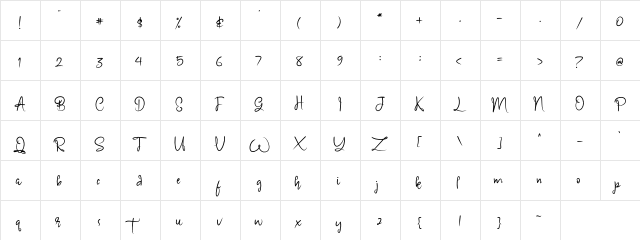
Carmillos Regular
Design Context for Carmillos Typeface
Carmillos is a composed and adaptable typeface that performs quietly and consistently across a wide range of design contexts.